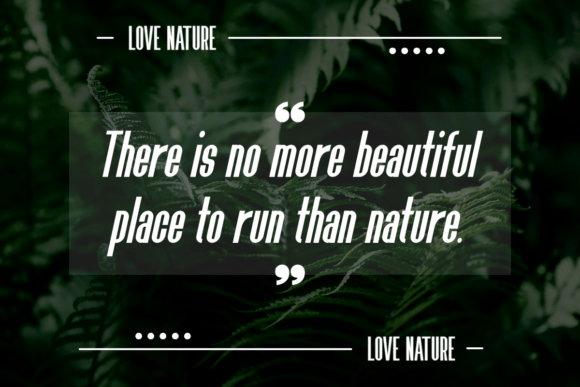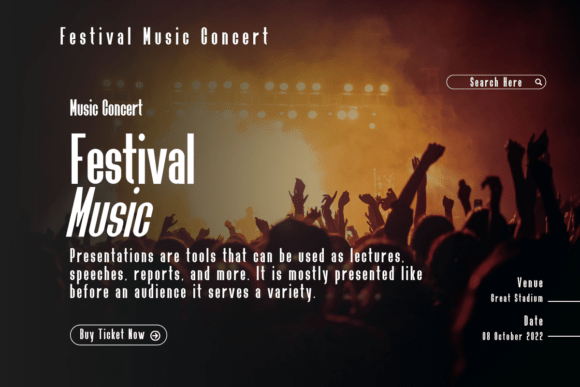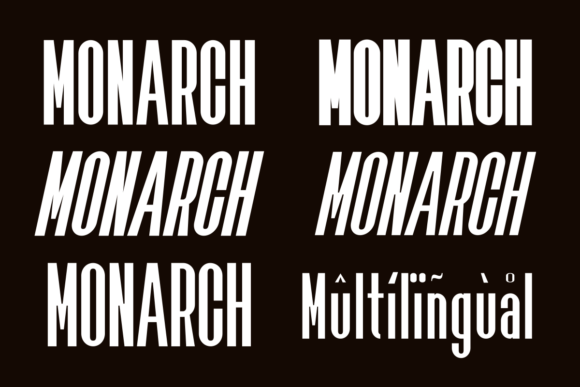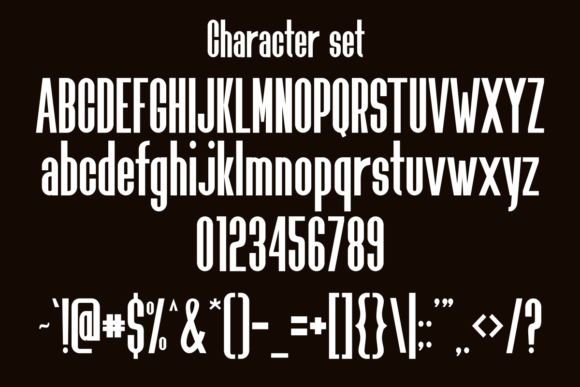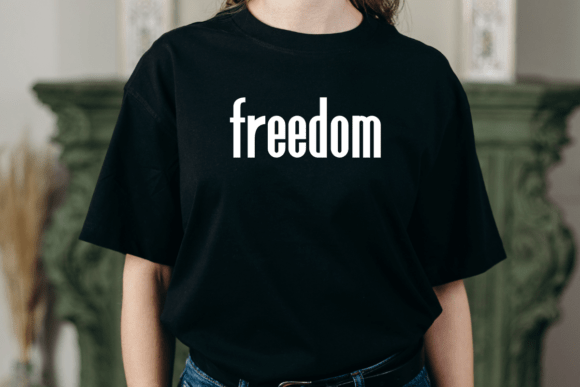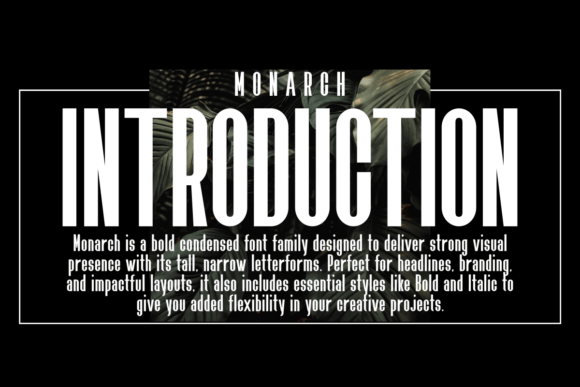
Introduction to Monarch Font
Monarch is a sleek and stylish condensed sans serif font that blends elegance with modern simplicity.
Featuring tall letterforms and clean lines, this font is perfect for luxury branding, chic logos, fashion quotes, packaging, wedding designs, and more Whether youโ€™re working on a classy magazine layout, a minimalist logo, or a high-end product label, Monarch adds a touch of refinement and sophistication to your work.
Key Features of Monarch Font
Why Choose Monarch Font?
Monarch Font offers exceptional quality and versatility, making it a valuable addition to your design toolkit. Whether you’re creating for personal projects or commercial use, Monarch Font delivers professional results.